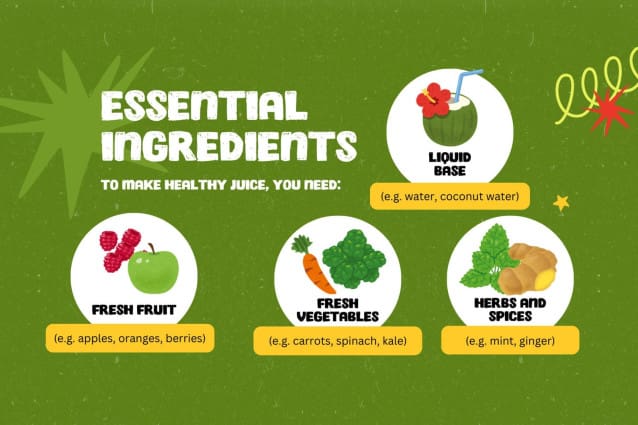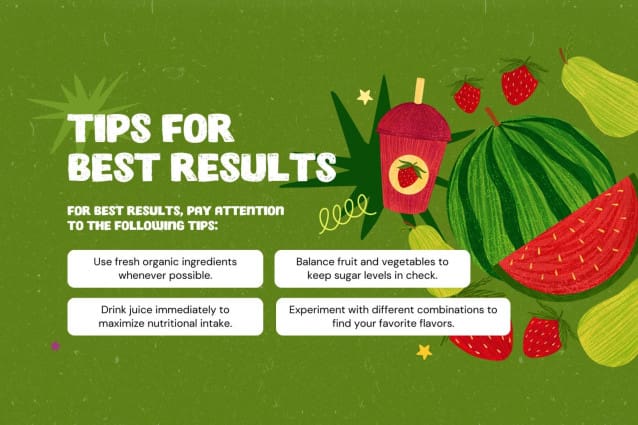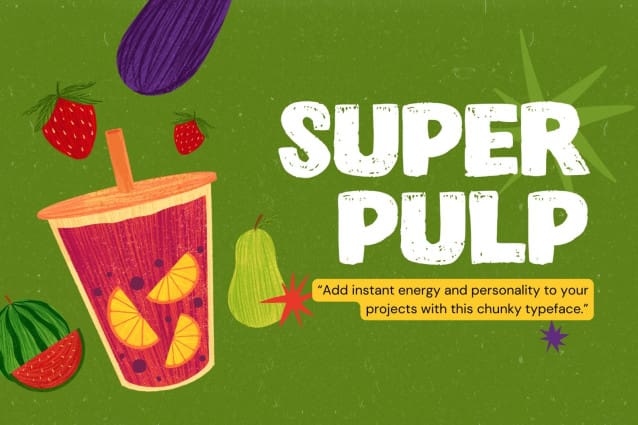
Super Pulp Font
Super Pulp Font, isn’t your average font. It’s a bold statement waiting to be made. This chunky typeface explodes with textured energy, perfect for grabbing attention and injecting vibrancy into your designs.